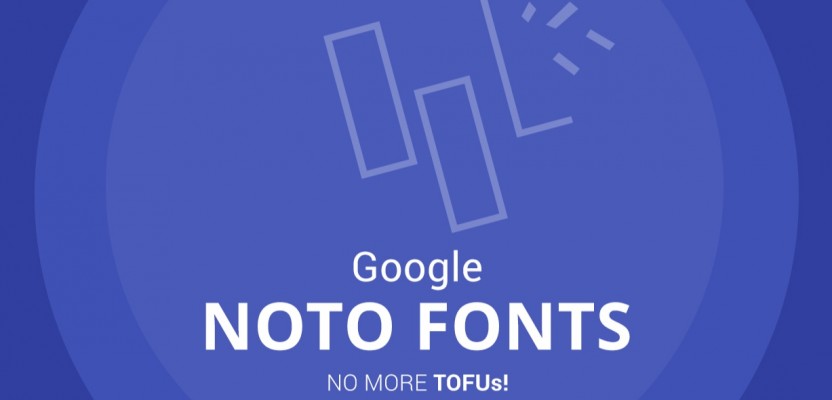
Google have reportedly spent five years developing the “One typeface to rule them all,” which will work not only across all devices, but across all languages. This holy grail typeface has been created as part of a collaboration with the typeface specialists at Monotype, and encompasses all written languages and scripts, including rarely spoken and dead languages, into one typeface family known as “Google Noto.” This family of typefaces covers more than 800 languages and 100 written scripts, and includes letters in multiple serif and sans serif across up to eight weights as well as numbers, emoji, symbols, and musical notation.
One of the main goals with Noto is to help ease global communications across borders, languages and cultures, but it's also been crafted to erase those dreaded blank boxes that often crop up on certain devices when a specific typeface isn't supported for one reason or another. When a computer is unable to display a font, it generally displays a blank box, which is colloquially known to those in the industry as “Tofu.” The name Noto is actually short for “No Tofu.” One of the hopes is that the typefaces will allow cultures to communicate digitally, where they haven’t been able to previously. When researching this uber font, Monotype and Google looked to the Tibetan language, which is notoriously difficult to translate. Entire libraries of writings and source material were accessed in an intensive research stage before the help of an actual Buddhist monastery was sought, to critique the font and make adjustments. The monks, who have studied many Tibetan manuscripts, were ideal experts to help evaluate Noto Tibetan.
Bob Jung, Google's Director of Internationalism, said: “Our goal for Noto has been to create fonts for our devices, but we’re also very interested in keeping information alive. When it comes to some of these lesser-used languages, or even the purely academic or dead languages, we think it’s really important to preserve them. Without the digital capability of Noto, it’s much more difficult to preserve that cultural resource.” Monotype's Linguistic Typographer, Kamal Mansour, added: “The aim of the Noto project is to provide digital representation to all the scripts in the Unicode Standard. That in particular is something that many different language communities could not afford to do on their own.”
Monotype researched and digitally designed the characters, writing systems and alphabets for each Noto typeface, applying the rules and idiosyncrasies for individual languages to the fonts. External designers and linguistic experts were also consulted in the process, managed by Monotype. Hundreds of designers, linguists, cultural experts and project managers were brought in to work on the project, which is still ongoing. Currently, Noto consists of 110,000 characters and 110 writing systems, but to ensure consistency with Unicode (the system that defines the characters and languages that can be displayed and used within a computer coding system), Google intends to update Noto as new characters are introduced to Unicode, such as the recent emoji updates.
Google funded the project, worked on strategy, helped with design direction for major languages, and contributed design review and technical testing resources, but this is very much Monotype's baby, and what a beautiful baby it is! It's also entirely open source under an Open Font License, which means that any designer or developer can contribute to the design of the scripts. If you're interest has been piqued, you can download the family of fonts for yourselves over at the official Noto website. There's even a handy search bar that allows users to search for individual languages and regions. Or you can just download the whole shebang and experiment.